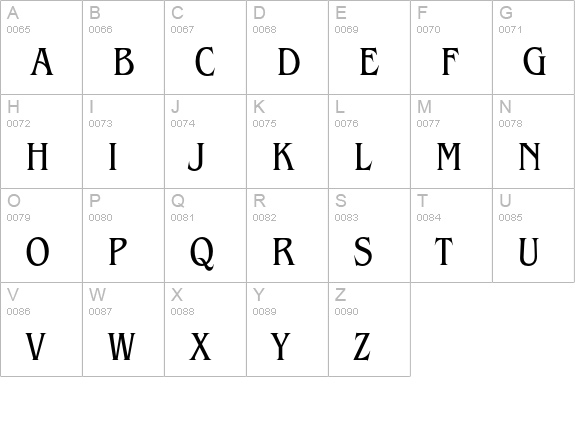
BenguiatEF-BookCondensed is a stylish and elegant font that exudes sophistication and modernity. Its condensed design allows for efficient use of space without compromising on readability. The sleek lines and subtle curves of this typeface make it perfect for various design projects, from branding to editorial layouts. What sets BenguiatEF-BookCondensed apart is not just its aesthetic appeal, but also the fact that it is available for free download at FontsMarket.com. This means that you can easily access and use this high-quality font for your personal or commercial projects without any cost. Whether you're working on a website, poster, or logo, BenguiatEF-BookCondensed is a versatile choice that will elevate your design to the next level. Download it today and add a touch of sophistication to your creations.